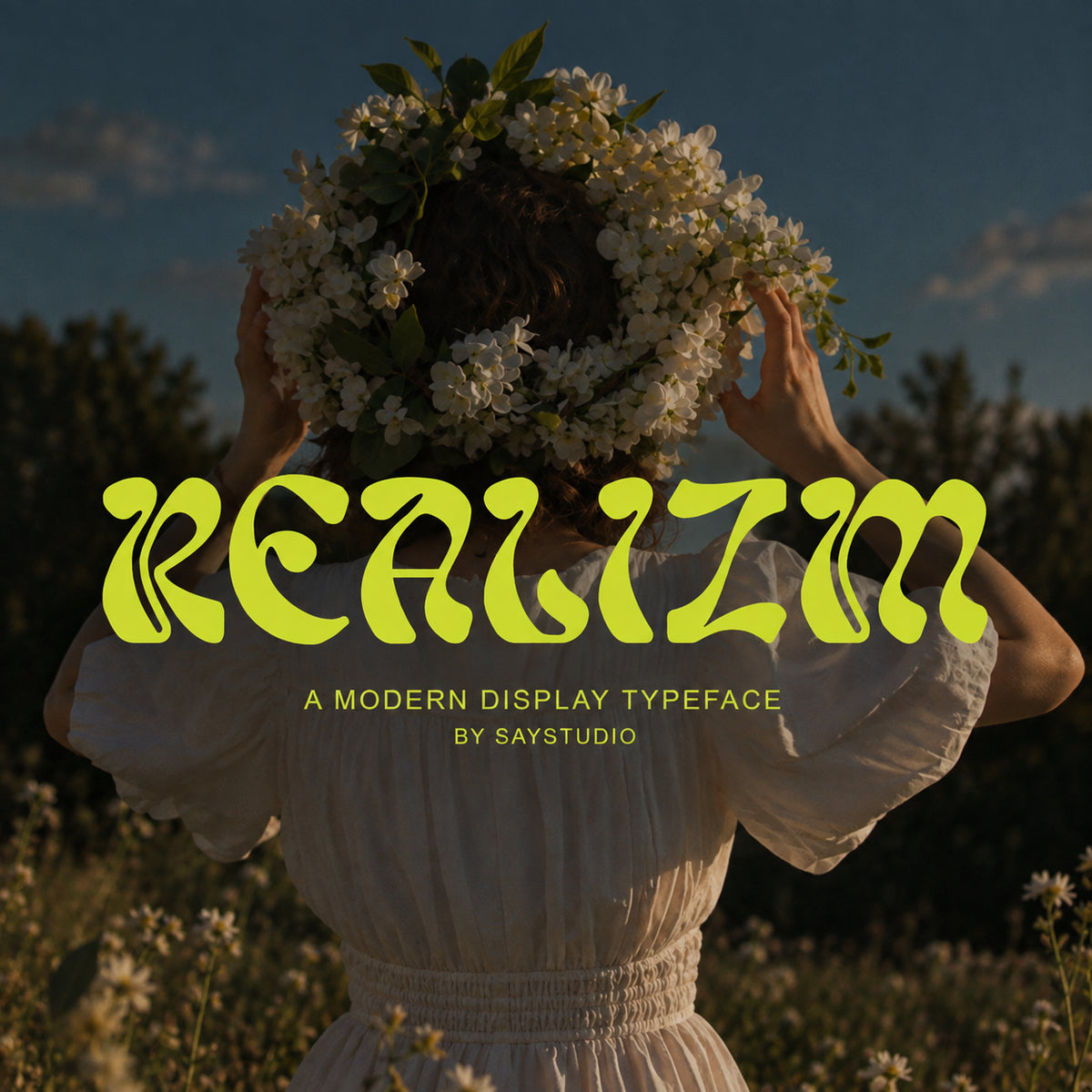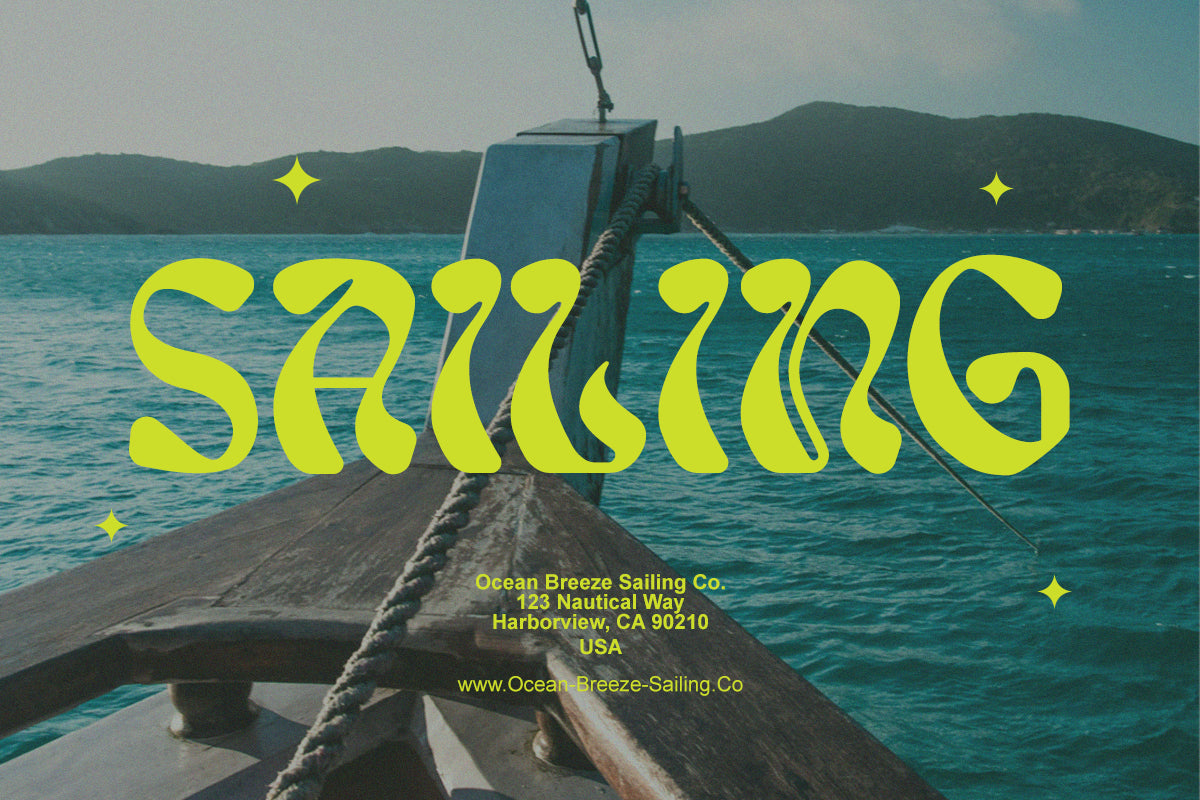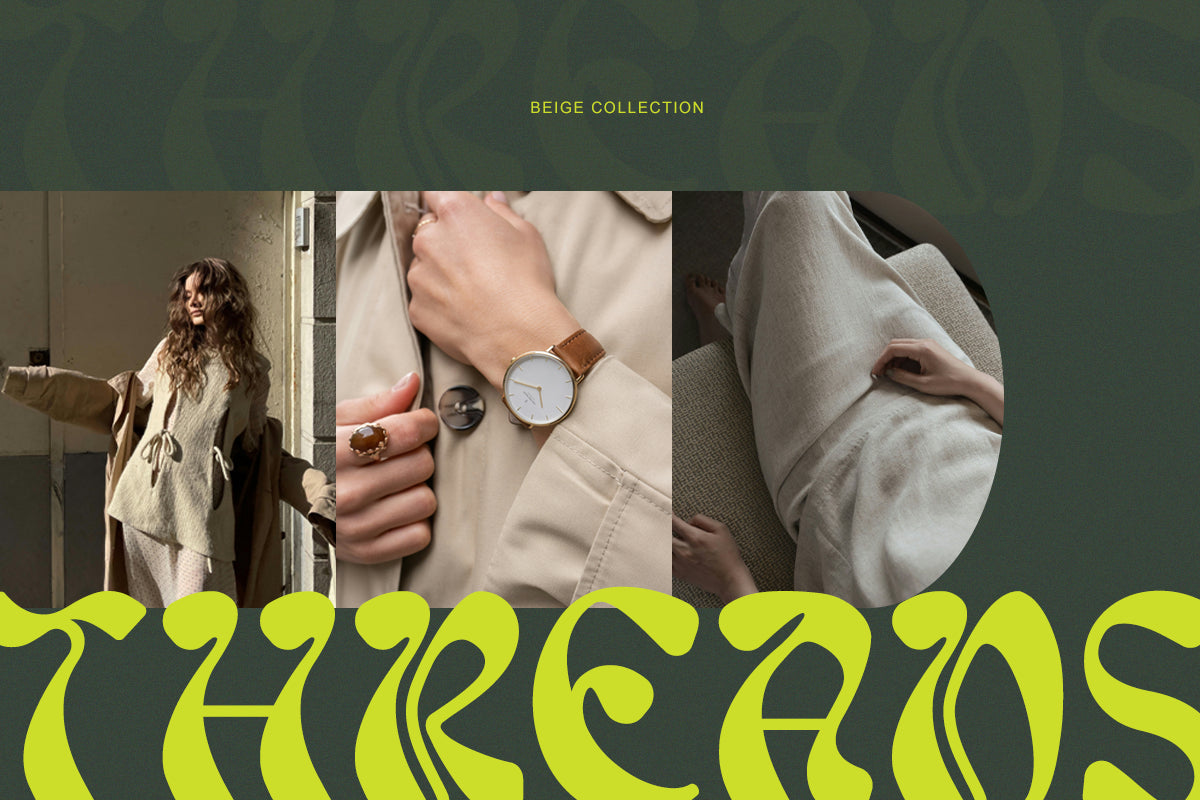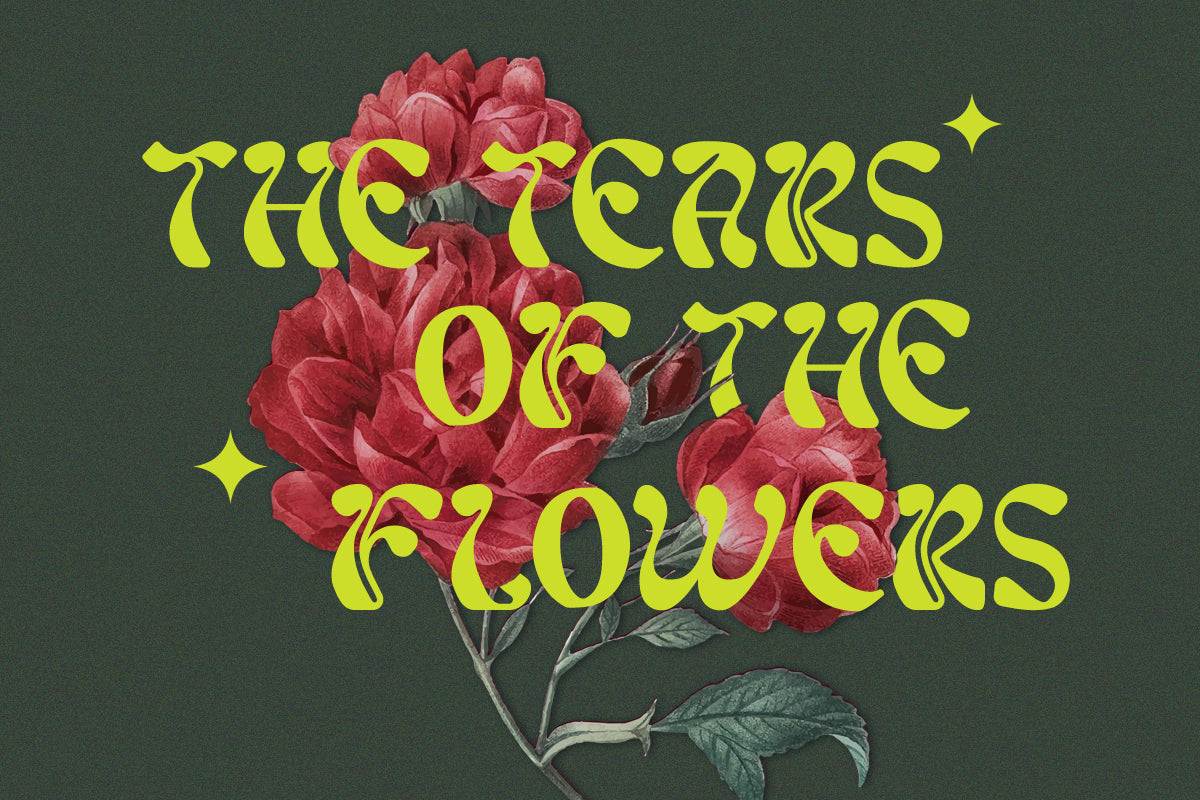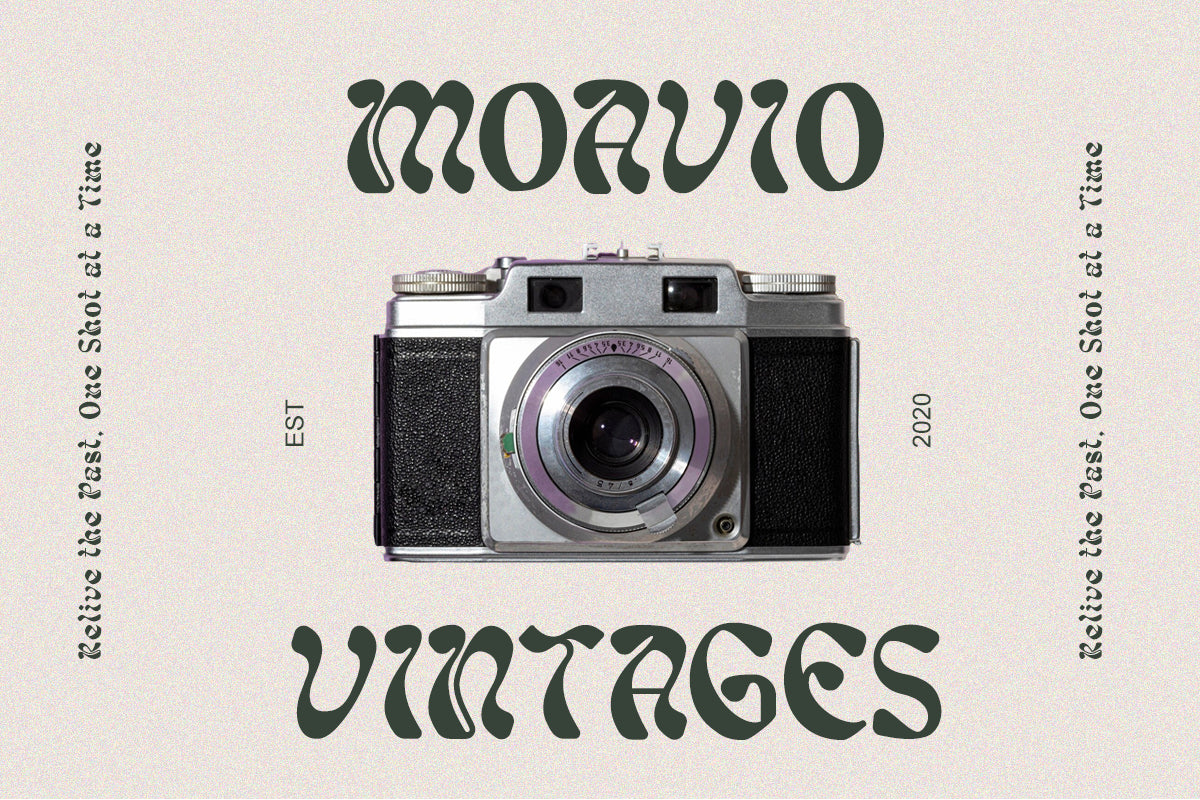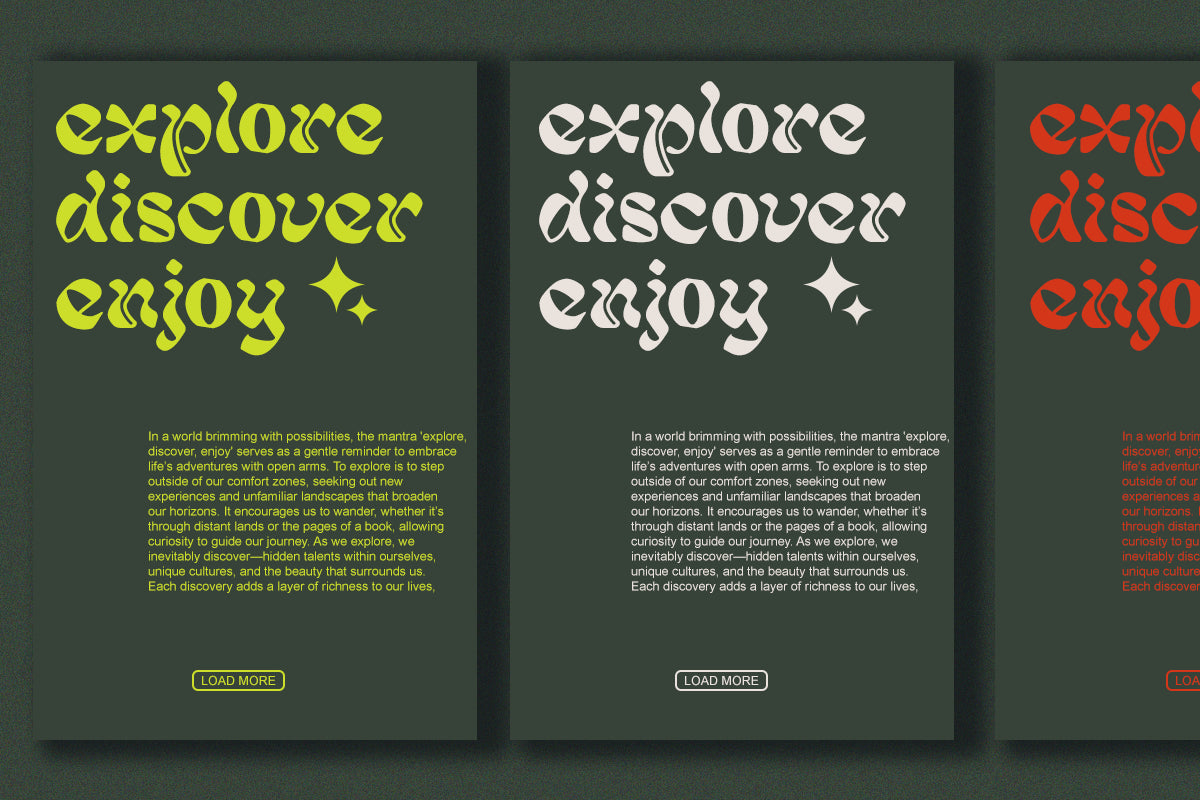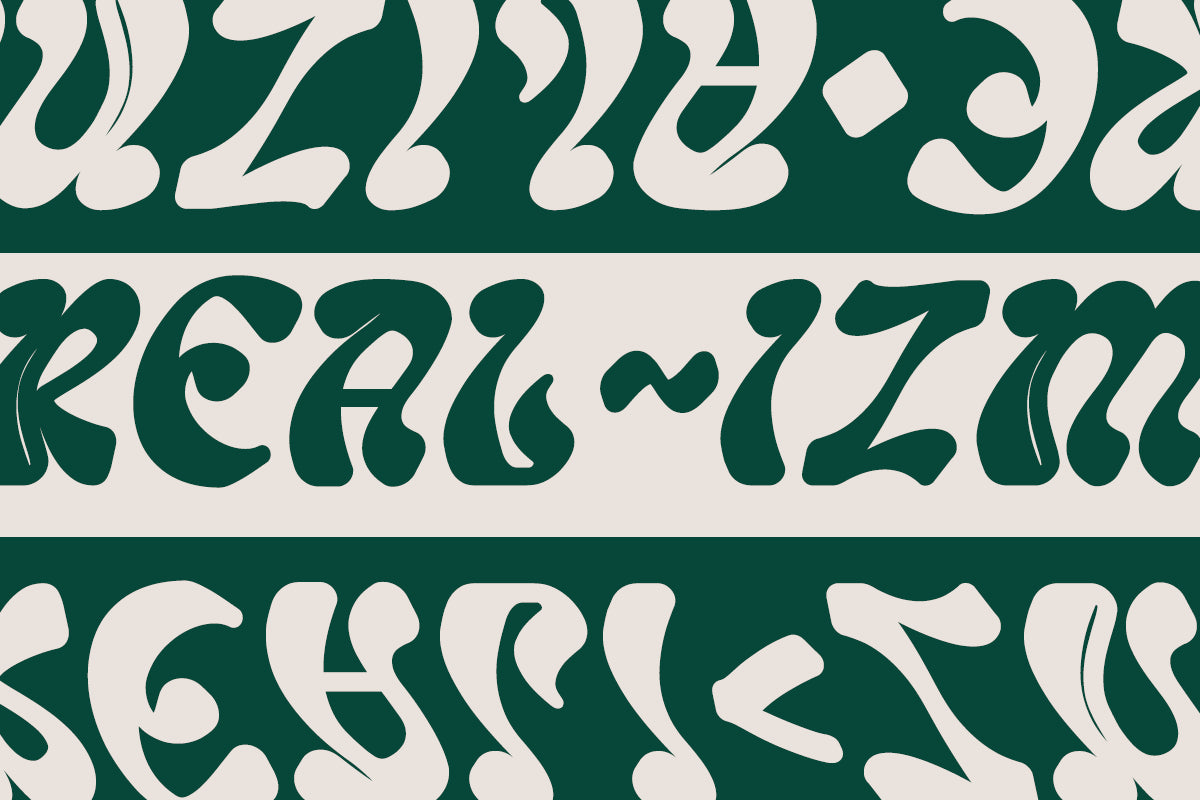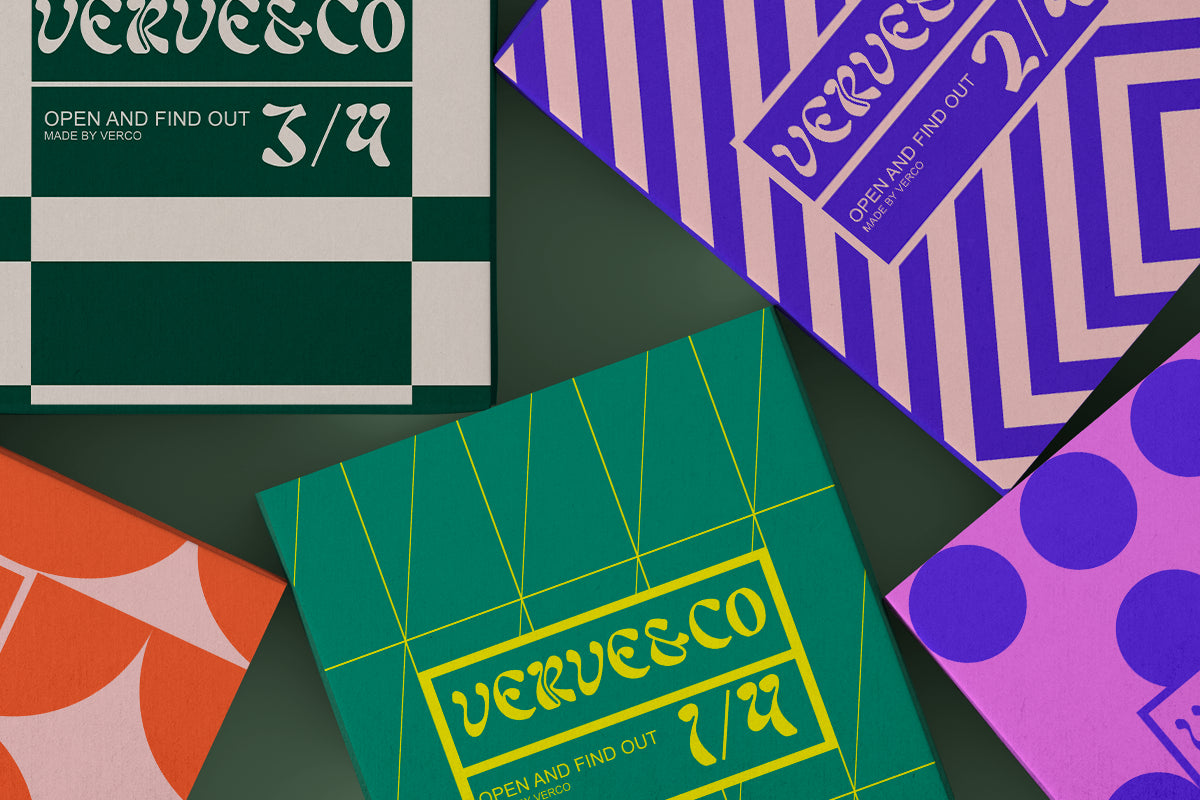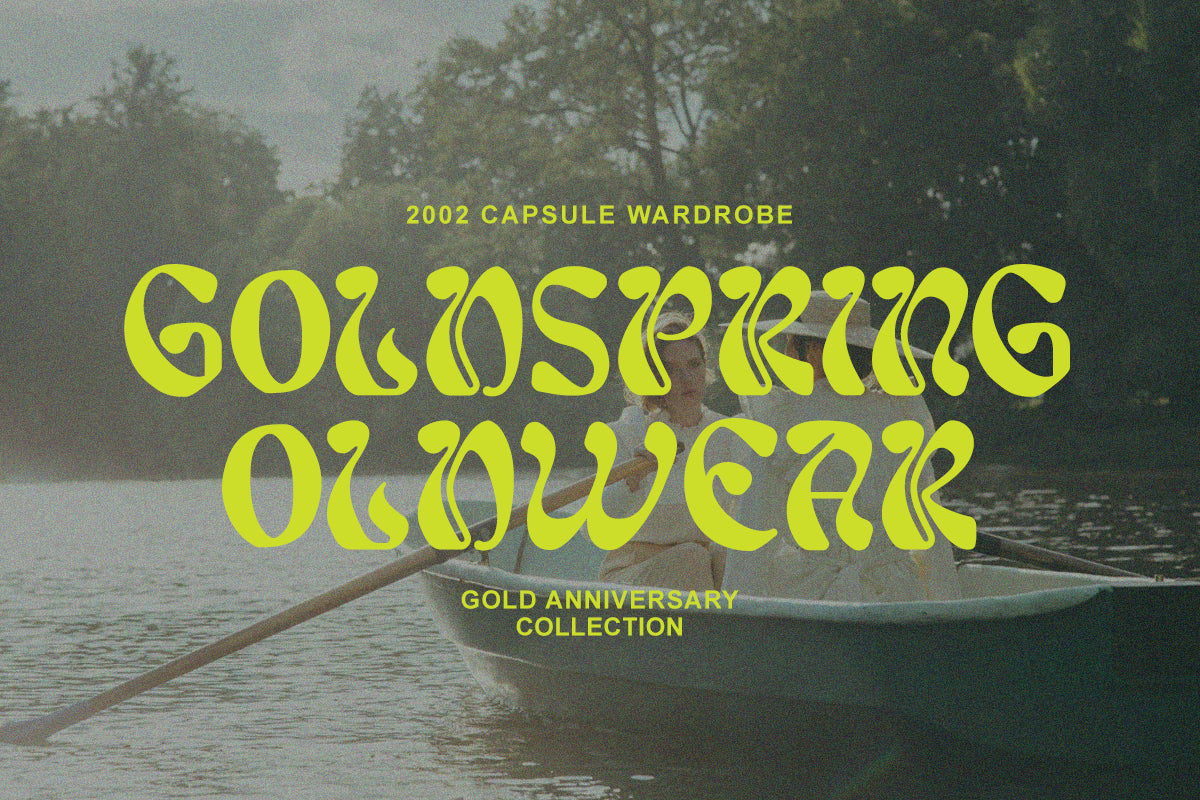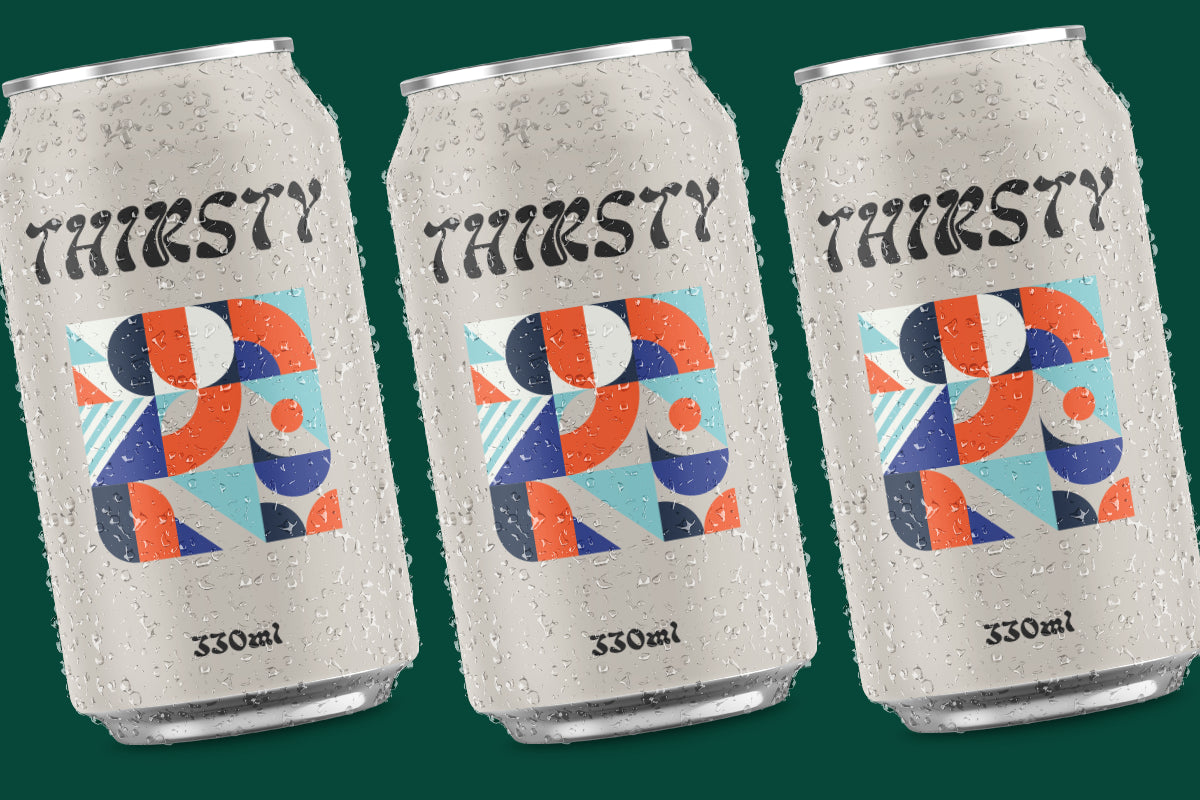
Realizm - Groovy Retro Font
Realizm is a bold and expressive modern display typeface with playful curves, fluid letterforms, and a distinctive retro-inspired character. Designed to make a statement, Realizm brings a groovy and artistic feel to branding, posters, editorial designs, album covers, apparel, packaging, social media graphics, and other creative projects.
Its unique display style works beautifully for designers looking for a modern retro font, groovy font, psychedelic font, bold display font, or experimental typeface with plenty of personality.
Stylistic Alternates
Realizm is a bold display typeface featuring curved letterforms and retro-inspired styling, available in Regular and Italic weights with stylistic alternates. The font includes uppercase and lowercase characters, numbers, symbols, punctuation, and multilingual support in OTF, TTF, and WOFF formats.